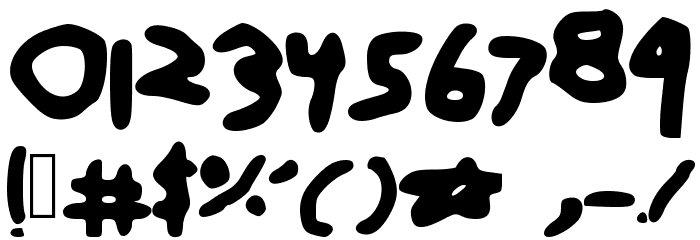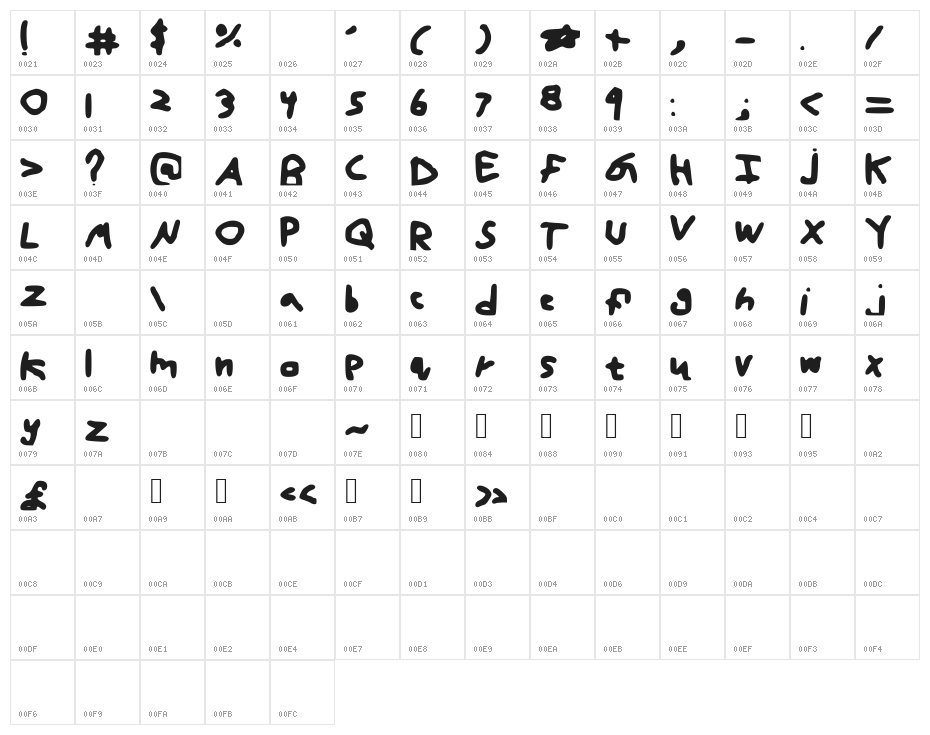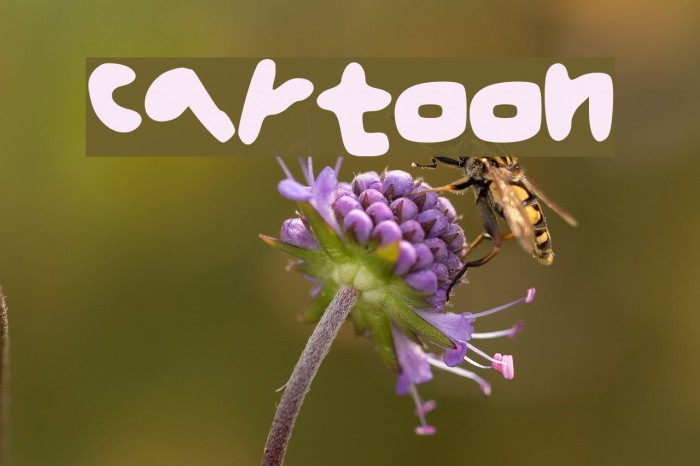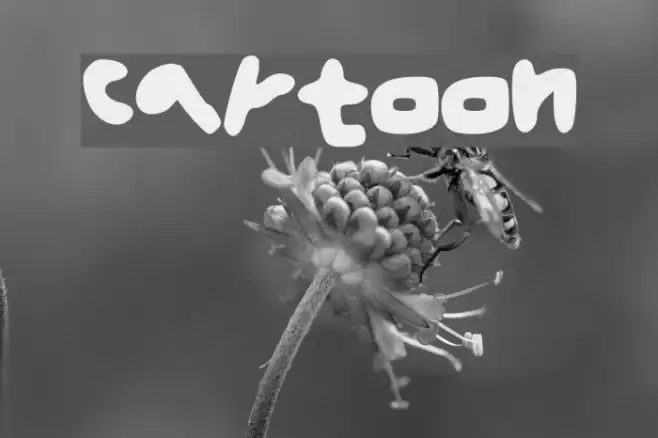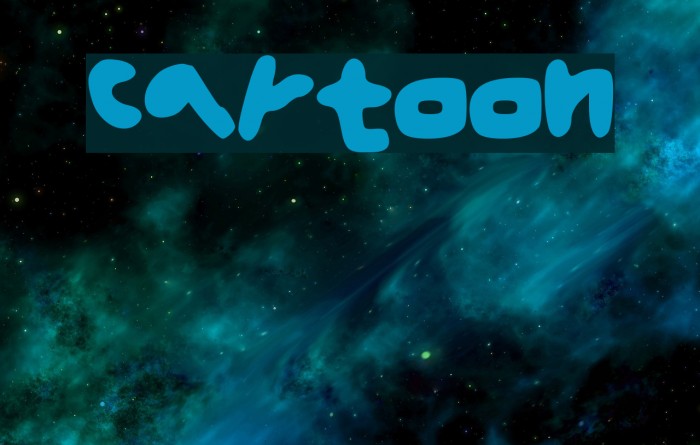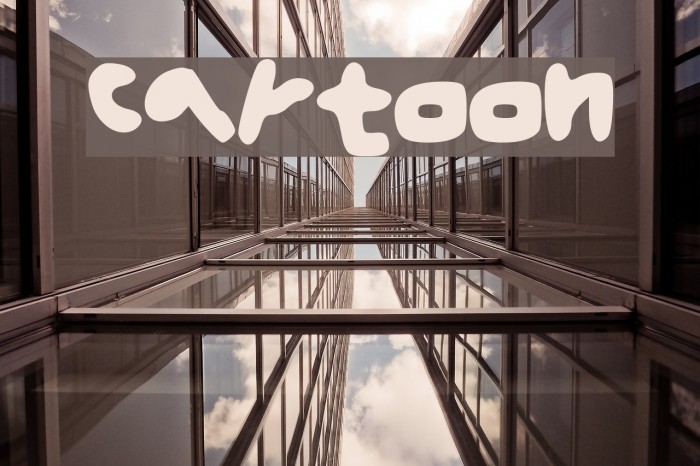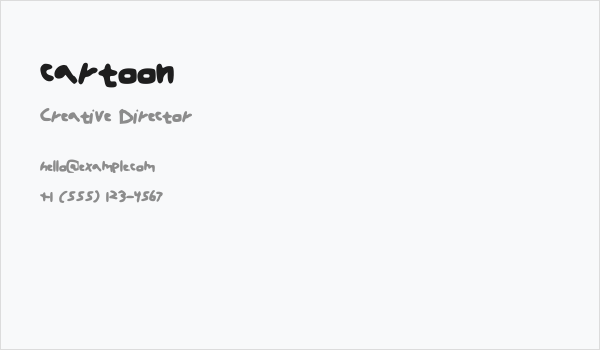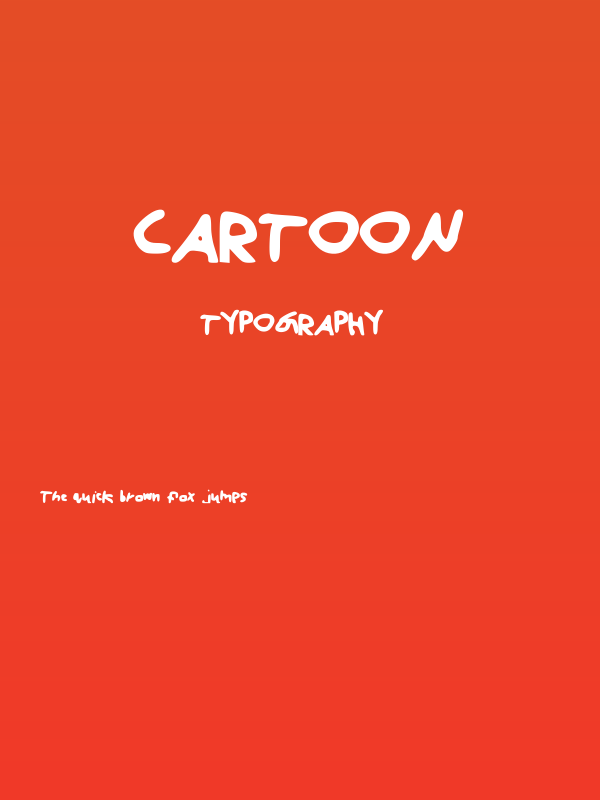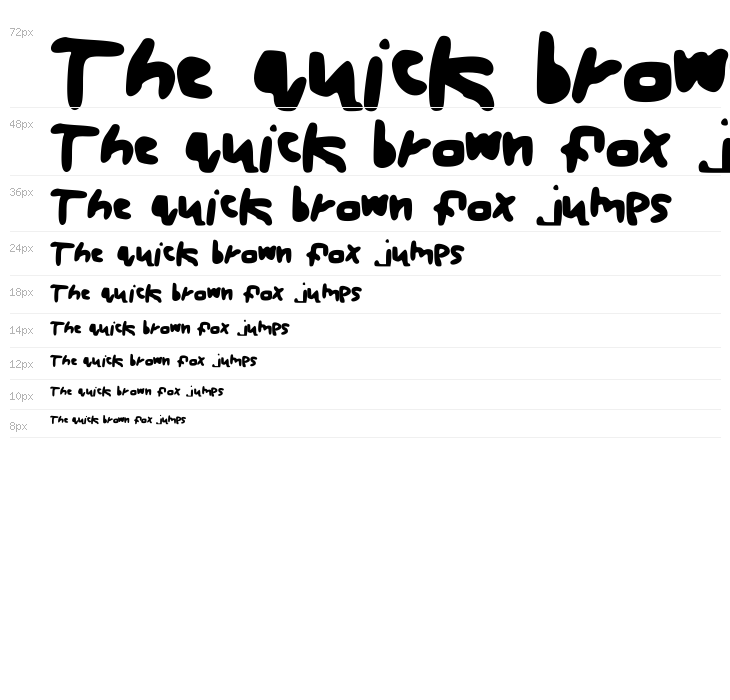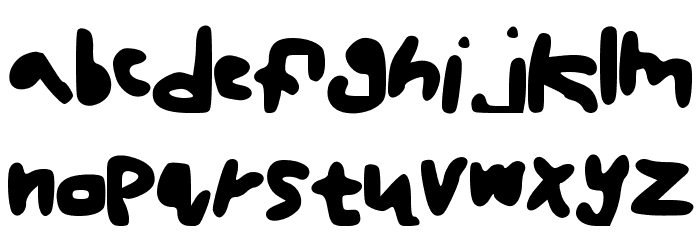
cartoon Font
cartoon Description
This playful and bold font exudes a cartoonish charm, characterized by its thick, rounded strokes and informal style. The letters are slightly irregular, adding a whimsical and fun touch to the overall appearance. The font maintains a consistent weight throughout, with a slight variation in stroke thickness that gives it a dynamic feel. Its exaggerated curves and playful forms make it ideal for projects that require a lively and energetic vibe. The font's distinct personality is perfect for capturing attention and conveying a sense of humor and creativity.
| Overall Style | Cartoonish, Playful |
| Proposed Projects | Ideal for children's books, comic strips, playful branding, and animated video titles. |